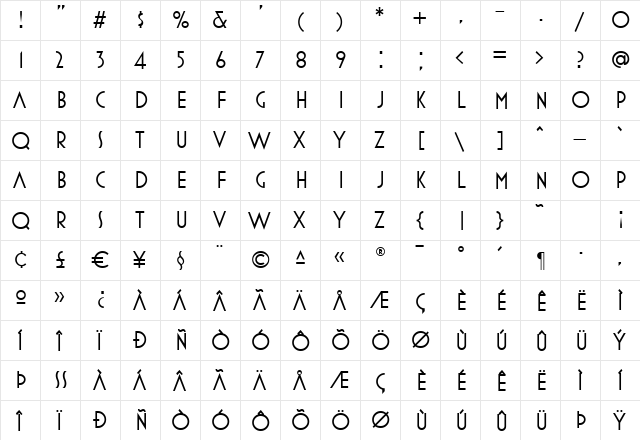
MostraThree Regular
Design Context for MostraThree Typeface
MostraThree takes a measured approach to typography — its balanced proportions and neutral character make it a reliable workhorse for both digital and print work.